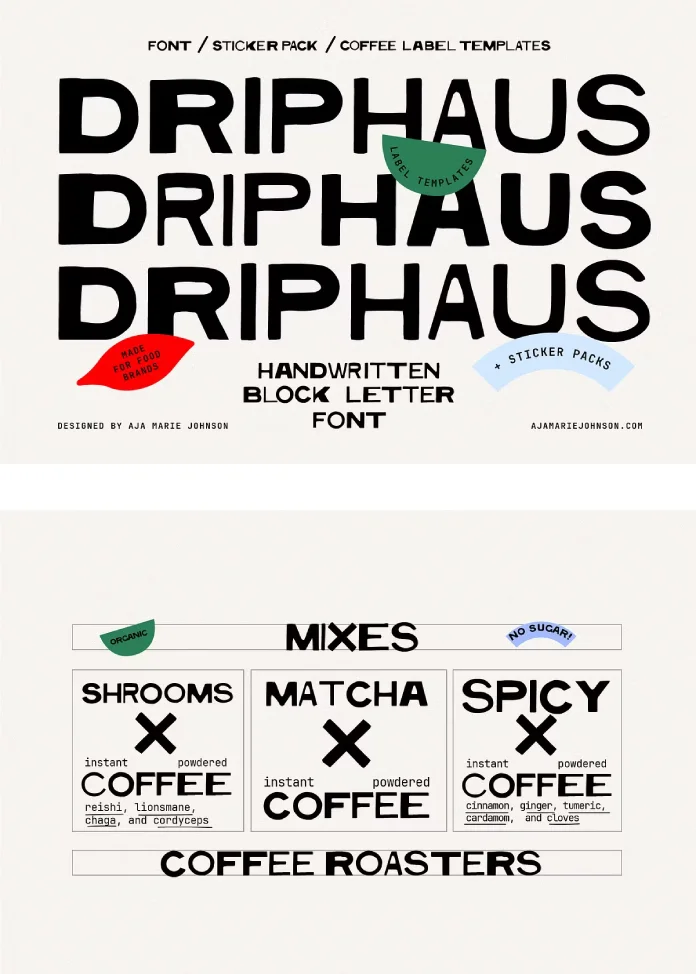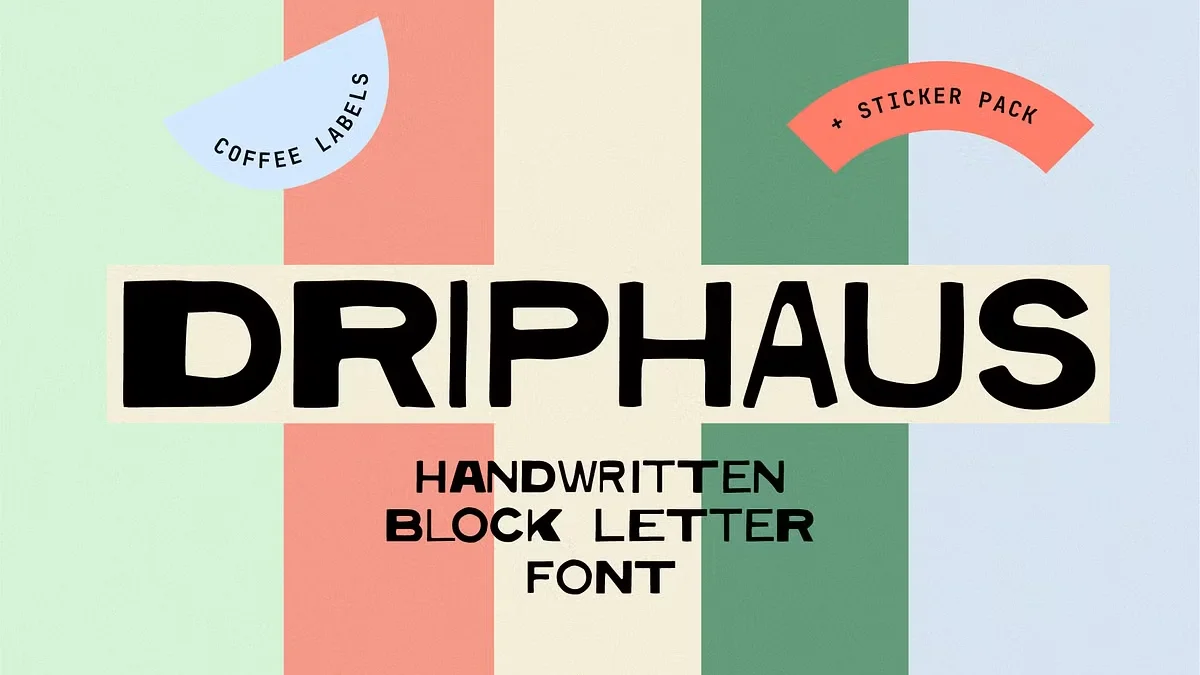
Discover The DRIPHAUS Typeface: Your Secret Ingredient for a Brand That Feels Real
Have you ever searched for the perfect font? You scroll for hours. You are looking for something that just feels right. It needs to be clean but not cold. It must be bold but not overbearing. You want a font that has a story. A font with a soul. This search often ends in compromise. But what if it didn’t have to? The DRIPHAUS Typeface + Label Kit by Aja M Johnson of designartboard is more than just a font. It is a complete branding solution born from a love for café culture and authentic design. It’s the character your brand has been searching for.
This isn’t just another digital asset. It’s a carefully crafted experience. Aja M Johnson designed Driphaus not for a massive client, but as a personal project. This passion is evident in every curve and line. It was brewed up with a specific vision: a local cafe. You can feel the warmth of a morning coffee and the charm of a hand-painted sign in its DNA. Let’s explore why the DRIPHAUS Typeface is capturing the hearts of designers and brand builders.
What Makes the DRIPHAUS Typeface Vibe So Unique?
First, let’s talk about the font itself. The DRIPHAUS Typeface is an all-caps display font. It is intentionally imperfect. Think about the charming inconsistencies of hand-lettering on a chalkboard menu. That’s the feeling it captures. Its blocky letterforms are strong and confident. Yet, subtle irregularities give it a human touch. It feels personal. It feels approachable.
This isn’t a sterile, corporate font. It speaks with its own voice. It is clear, loud, and a little rough around the edges. This handmade font is perfect for brands that value honesty and a hand-touched aesthetic. It gives your project an instant sense of craft and credibility. It’s the difference between something mass-produced and something made with care. Which story do you want your brand to tell?
The Story Behind the Design: A Project of Passion
Every great design has a story. The story of the DRIPHAUS Typeface is one of creative freedom. Aja M Johnson, the designer behind designartboard, steps away from client work periodically. She creates personal projects to stay fresh and explore new ideas. Driphaus is a product of this passion. It wasn’t commissioned. It was imagined.
This origin is crucial. This means the design wasn’t diluted by committee meetings or conflicting feedback. It is a pure, singular vision. The inspiration comes directly from the cozy, aromatic world of coffee shops. It’s in the stamped logo on a paper bag of fresh beans. It’s in the bold lettering on a cold brew bottle. This authenticity is something you can’t fake. And in today’s market, consumers crave that authenticity. They can spot it instantly.
More Than a Font: Unpacking the Full Label Kit
Here is where the DRIPHAUS Typeface truly sets itself apart. You are not just getting a font file. You are getting a comprehensive brand-building toolkit. This is a shortcut to a cohesive, professional look.
- DRIPHAUS Typeface in Two Styles: Giving you versatility for headlines and different applications.
- Editable Illustrator Files: All assets are provided in AI and EPS formats, giving you full control to customize colors, text, and layouts.
This kit eliminates hours of work. The design decisions have already been made by a professional. You just need to bring your brand’s name and vision.
Is the DRIPHAUS Typeface Right For Your Project?
This handmade font and label kit is a dream for a specific type of creator. Are you one of them? The DRIPHAUS Typeface is ideal for food and beverage brands. Coffee brands and cafes planning to sell their own beans or bottled brew will find it especially perfect. Its aesthetic aligns seamlessly with the artisanal, small-batch movement.
However, its use isn’t limited to coffee. Think about it.
- Artisanal bakeries.
- Craft breweries.
- Organic skincare lines.
- Lifestyle and apparel brands with a rustic or urban edge.
- Poster designs for local events.
- Social media graphics that need to stand out from the noise.
Essentially, if your brand’s identity is built on authenticity, craft, and character, the DRIPHAUS Typeface is for you. It is for anyone who wants to avoid a generic look and create something memorable. Designers can also add this powerful asset to their toolbox for clients who want an honest, hand-touched aesthetic.